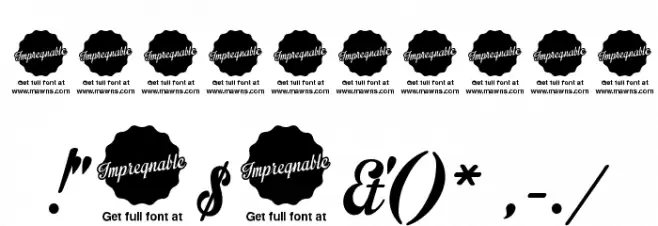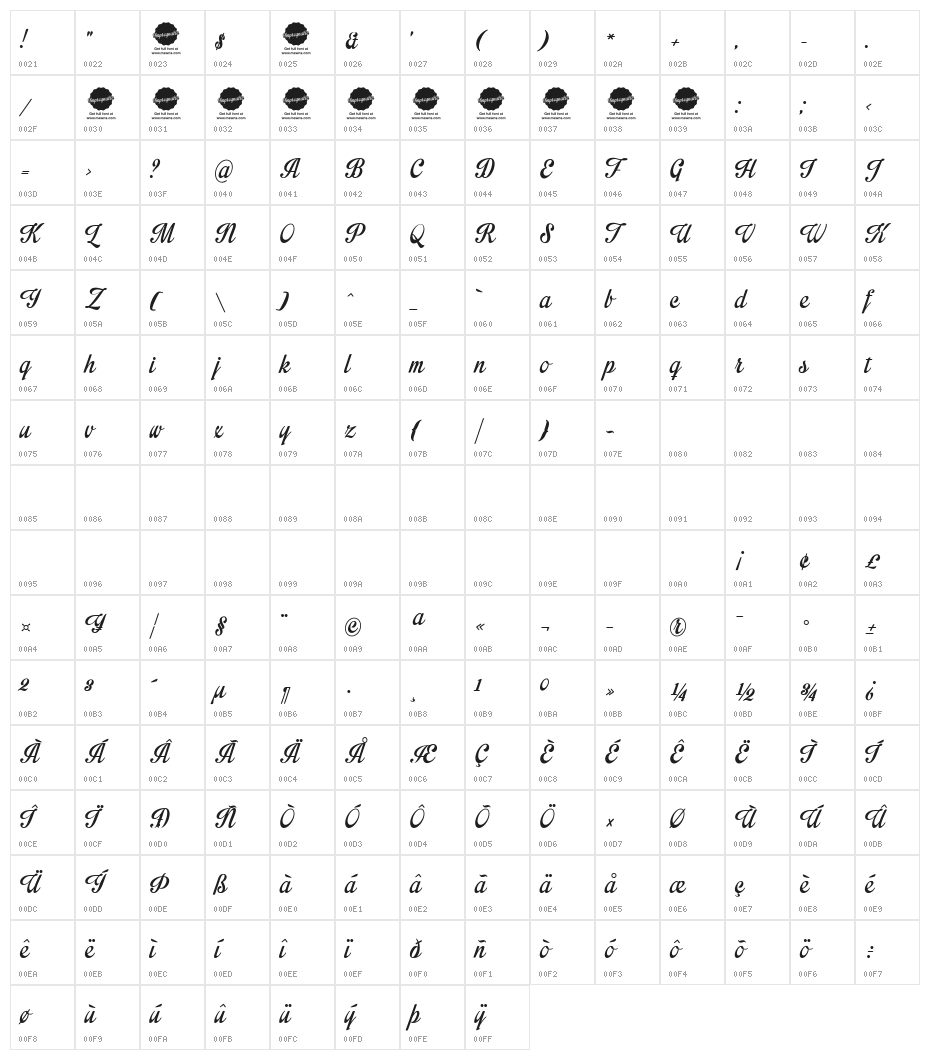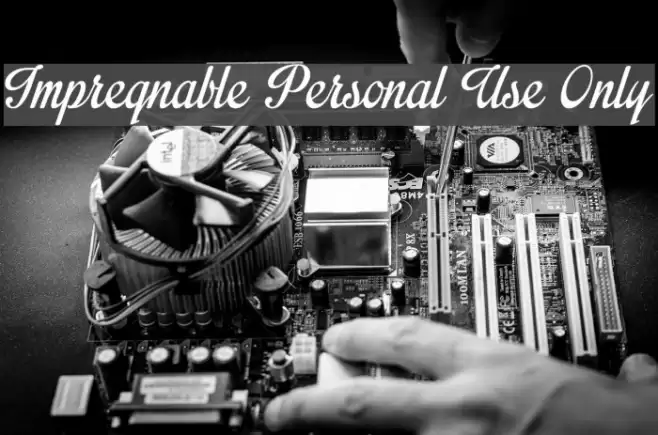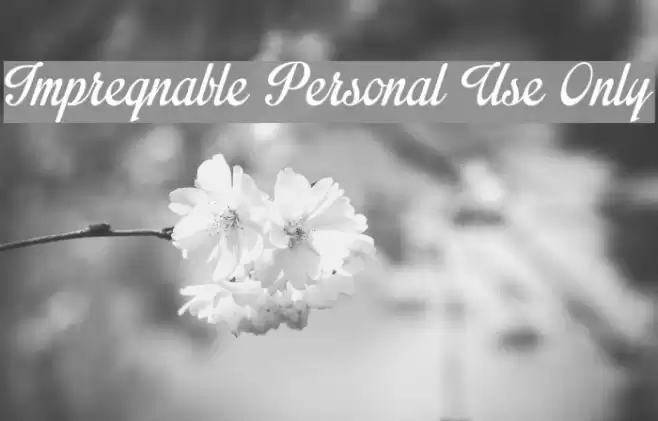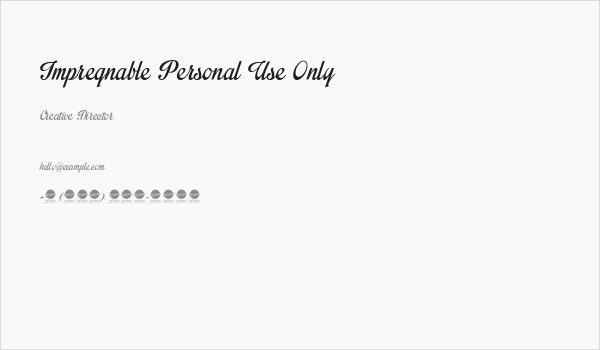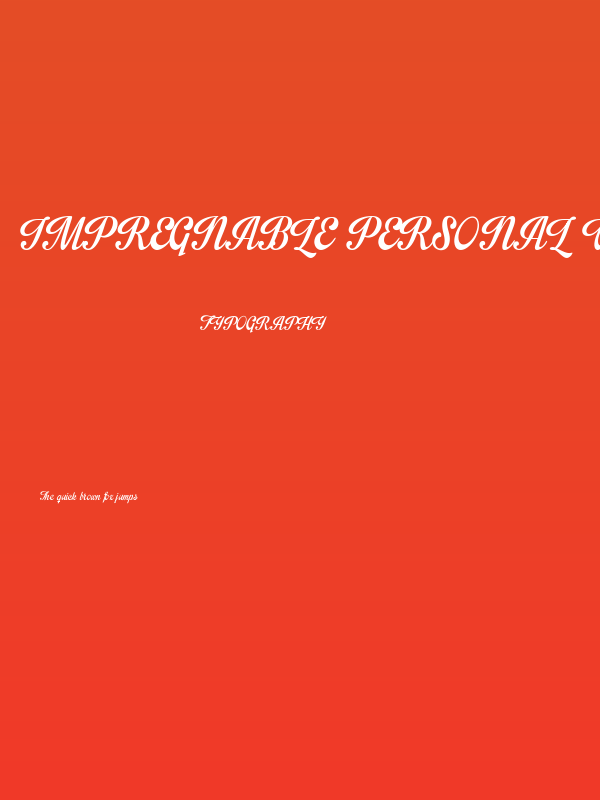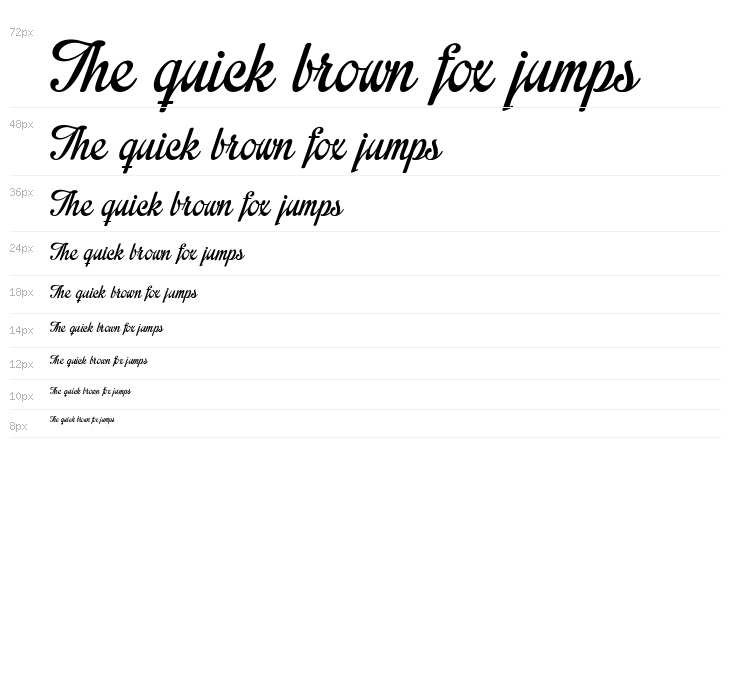
Impregnable Personal Use Only Font
Impregnable Personal Use Only Description
This font features an elegant script style with flowing, cursive characters that convey a sense of sophistication and grace. The uppercase letters are bold and ornate, with intricate loops and flourishes that add a decorative touch. The lowercase letters maintain a consistent style, with smooth, connected strokes that enhance readability while preserving the font's artistic flair. The numerals and special characters are designed to match the overall aesthetic, ensuring a cohesive look across all text elements. This font is ideal for projects that require a touch of elegance and refinement.